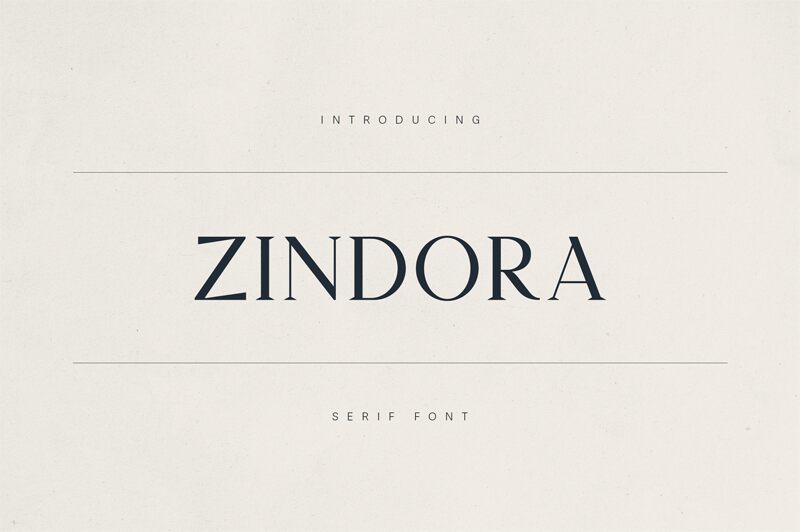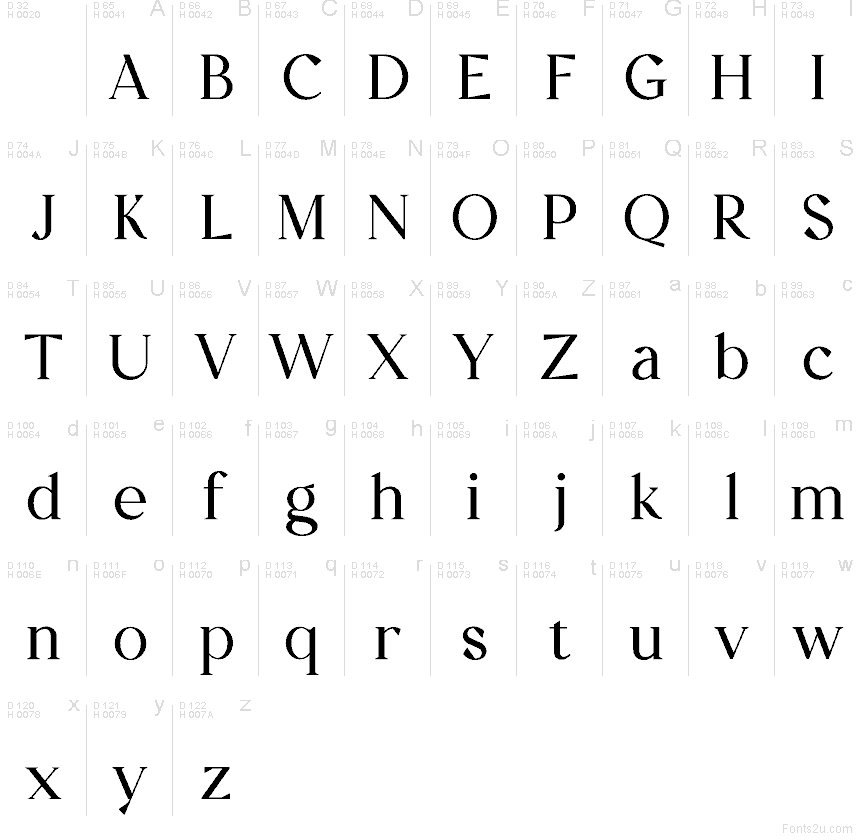
Zindora Regular
Zindora font by VPcreativeshop is a free serif typeface with a crisp, editorial edge and quietly dramatic curves. Its slim verticals and finely tapered serifs give every word a tailored, magazine-ready feel, while the generous contrast in stroke weight adds a subtle flicker of drama without turning theatrical. Letters feel both poised and fluid, like ink drawn with a steady hand, which gives headlines and logotypes a calm, confident presence.
Using Zindora, you can bring a refined voice to fashion branding, beauty packaging, book covers, wedding suites, restaurant menus, and premium social media graphics. This free font shines when you set it larger and let the elegant letterforms breathe, then pair it with a clean geometric sans for body copy. Zindora’s polished rhythm and sharp details make it easy to create layouts that feel luxurious, modern, and unmistakably composed.